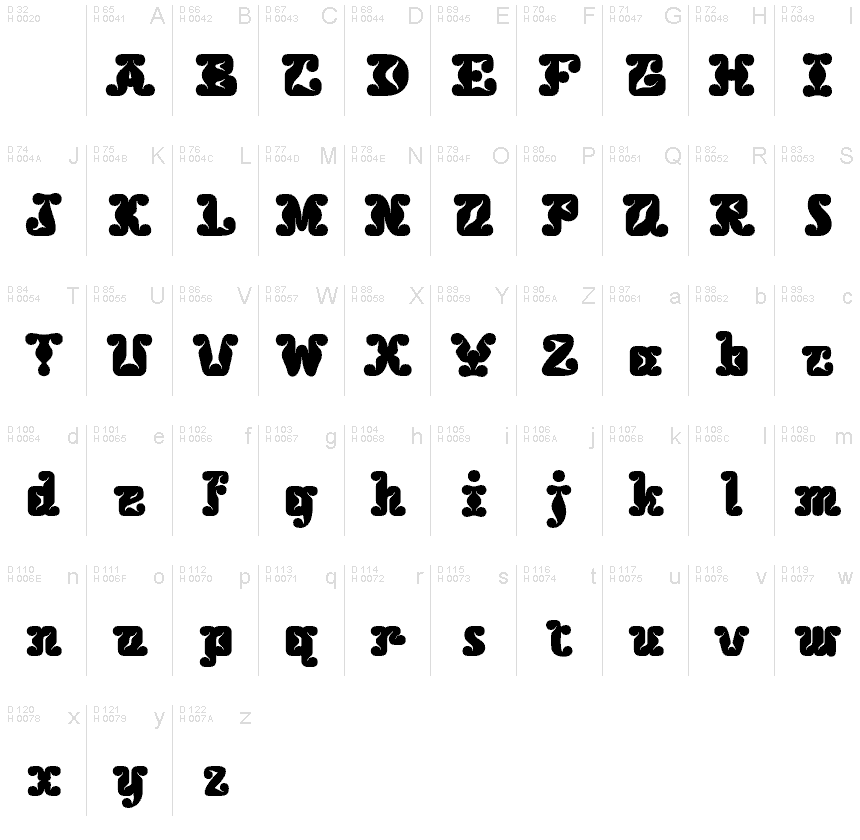
CS Maize Regular Demo
CS Maize font by Craft Supply Co. is a bold, expanded display typeface indulged with organic shapes and retro influences. This free-to-download typeface carries a whimsical essence, distinctive personality, and creative flair that deliver psychedelic feel in its outlined and inline specialized letters.
This is the perfect choice for book covers design, organization posters, advertisement flyers, branding projects design such as business cards or packaging patterns; video game graphics or environmental elements like signages! Other uses involve album covers artwork production or clothing brand typography design.